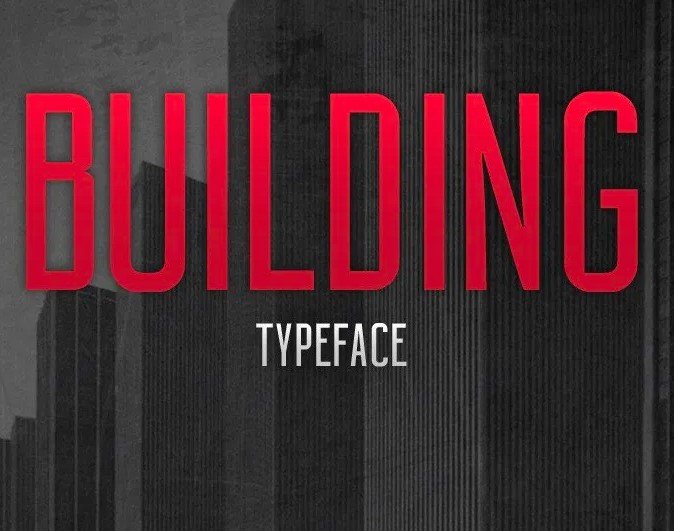
Today, we are sharing Building Font, which is excellent for creating titles or headlines. It boasts strong visual attributes that offer a fantastic experience for graphic design users or viewers. This amazing font was created by Leonardo Gubbioni.
You can take a view of the image below to take an idea about its letterforms, it also has brilliant and amazing text letter characters which is best for any type of designing.
View Of Building Font
Don’t locate on further section, view the picture here that we attached under the paragraph that contains an example of the text of this font which is suitable for all types of designs.
This unque and elegant font that can be used with averta font which has a popular texture so that can also be used in pairing also. That’s why each designer treated it as a really perfect font in all appreciate.
- Magazine and newspaper ads
- Books
- Trailers
- Infographics
- Menus
- Wall murals
- Books
| Name | Building Font |
| Designer | Leonardo Gubbioni |